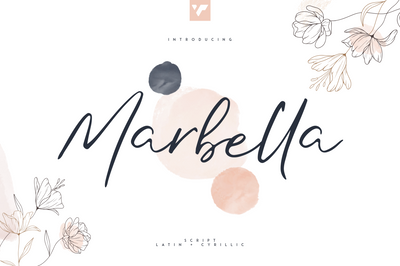
Marbella Script - 3 weights
Introducing Marbella - Signature script - 3 weights
Marbella is organic and casual script loaded with 3 fonts, ligature glyphs and 95 languages support
• Uppercase, lowercase, numeral, punctuation & Symbol
• Light, Regular, Bold
• ligature glyphs
• Multilingual support - 95 languages